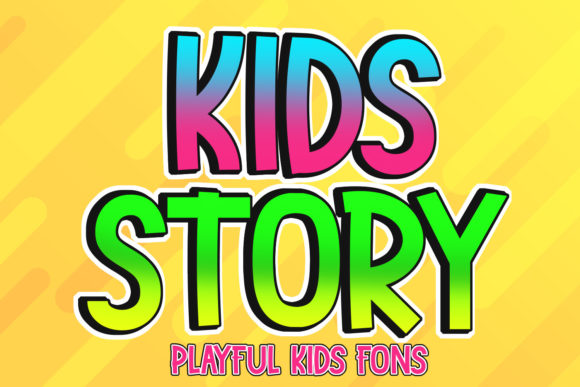
In the realm of artistic expression, Kids Story Font emerges as an enchanting display font, its strokes flowing with the captivating grace of a heartfelt narrative. Created by the imaginative minds at niyos.studio, Kids Story Font belongs to the display font family, a genre renowned for its bold and captivating presence. Each letterform is meticulously crafted, exuding a playful spirit that instantly captivates the senses. Inspired by the magic of Valentine's Day, this font is more than just a collection of characters; it's an invitation to embark on a typographic journey filled with love, laughter, and endless possibilities.
With its smooth curves and impeccable detailing, Kids Story Font possesses an inherent charm that makes it the perfect choice for fashion branding and editorial designs. Its ability to seamlessly blend elegance and playfulness makes it an ideal companion for projects seeking a touch of whimsy and visual delight. Whether you're creating eye-catching logos, designing captivating posters, or crafting heartfelt invitations, Kids Story Font will add an unforgettable touch that leaves a lasting impression.
Step into a world where imagination knows no bounds, where your creative visions dance freely amidst a symphony of colors and emotions. Immerse yourself in the enchanting embrace of Kids Story Font, and let your designs bloom with a vibrancy and charm that will leave your audience spellbound. So, unleash your inner artist, explore the boundless possibilities, and let your designs dance to the rhythm of Kids Story Font. The adventure awaits, and the only limit is your imagination.